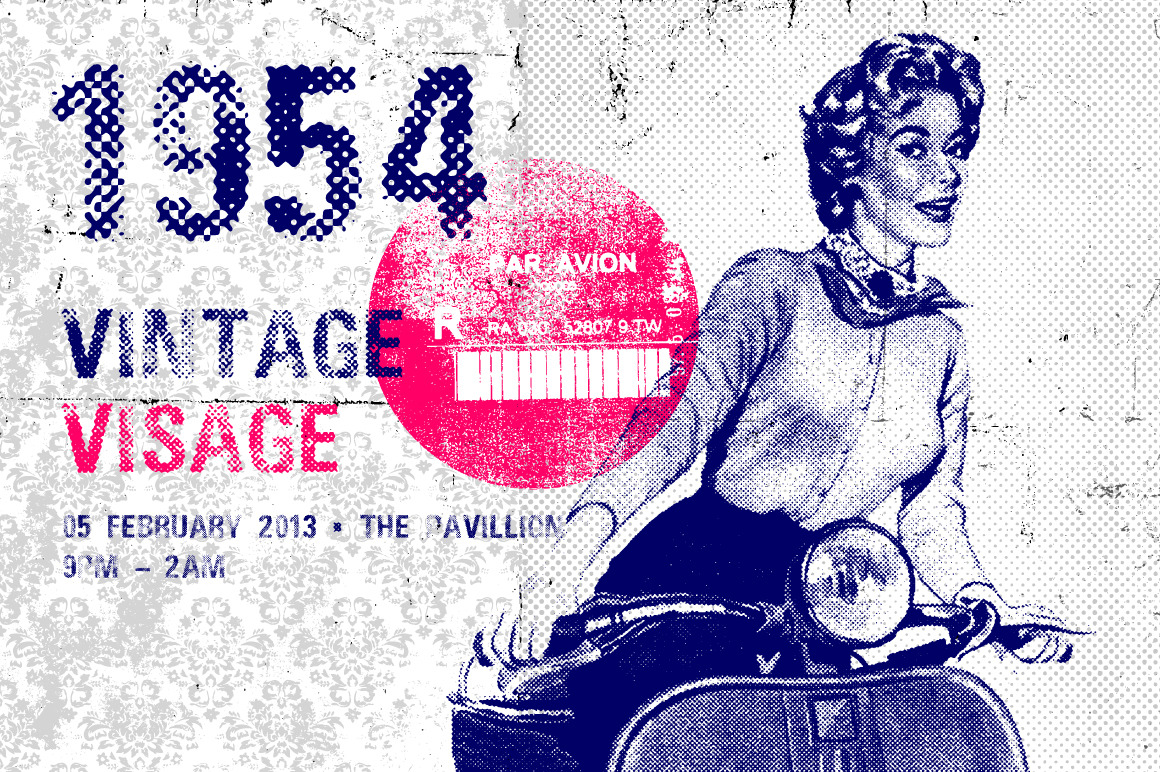
Dirty Halftone Font
Dirty Halftone is a font based on halftone screen textures.
This font works well for both headlines and body copy. Great for retro or vintage projects and for adding texture.
Combine with other halftone textures to create montage illustrations and other concepts.